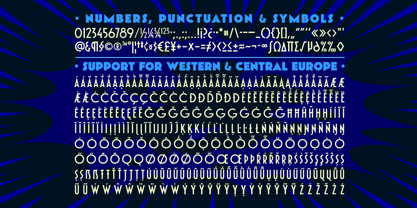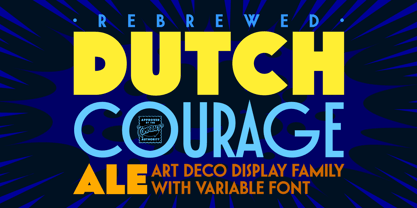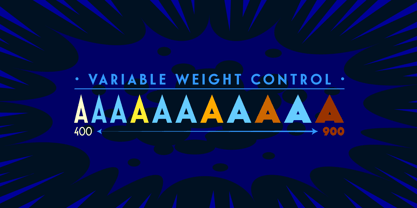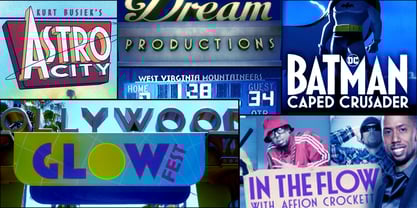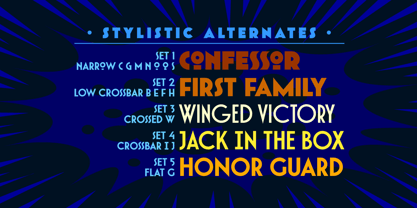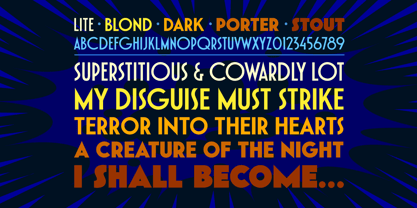
Dutch Courage Ale
by Comicraft
The Dutch Courage Ale Font Family was designed by Richard Starkings, John Roshell and published by Comicraft. Dutch Courage Ale contains 2 styles and family package options.
Citizens of Astro City, the time has come! Comicraft’s Dutch Masters have remastered the fonts which lend Kurt Busiek’s ASTRO CITY from Image Comics its Classic Clean typographical style. You can’t say Astro City and Art Deco in the same sentence unless it’s typeset with Dutch Courage’s bold geometric shapes, streamlined forms, and optimistic letters!
Sharp 1920s style “Dutch Courage Ale” is a family of five weights—including fresh extrabolds “Porter” & “Stout”—with a variable font to select any point between. Each weight includes four sets of stylistic alternates for a barrelful of delicious options!